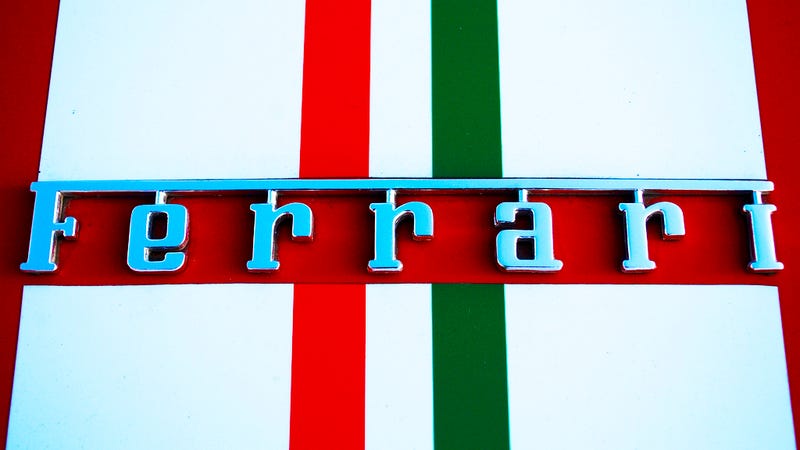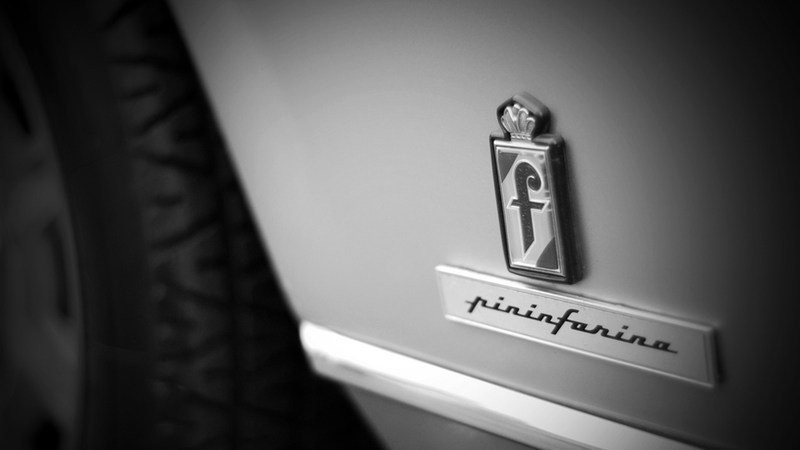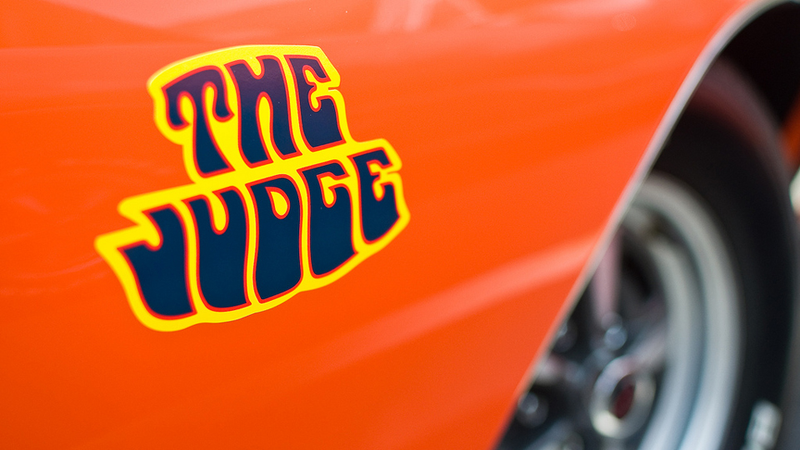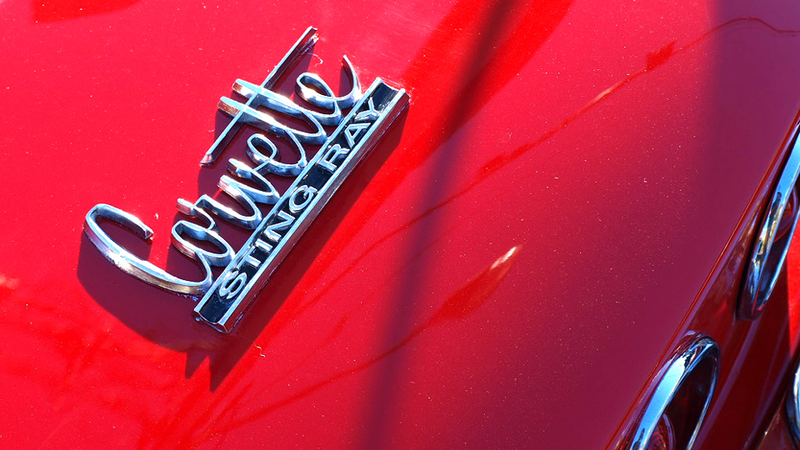
The Ten Greatest Automotive Fonts Of All Time
It's time to delve into the nerdcore world of typeface and logotype and see how just a few letters spelled out in chrome can define how you feel about a car. According to Jalopnik readers, these are the ten greatest fonts used in or on cars.
10.) Delahaye
Why it's classic: French super sports car makers from before WWII, Delahaye, used this beautiful, standout art deco font.
It just captures the feel of the 1920s and '30s and their absurdly expensive, somehow refined ultra-luxury cars.
9.) Pontiac's "The Judge"
Why it's classic: From 1969 to 1971 you could order up a single performance package for your Pontiac GTO, dubbed simply "The Judge." The name came from the popular comedy variety show of the day "Laugh-In" and the font was equally as hip.
Sadly, few car companies are willing to so openly pander to what the kids are doing, especially right in the name of a car. For instance, why isn't the badge on every Chevy Sonic written in twisting, utterly illegible graffiti?
8.) FIAT
Why it's classic: Another Art Deco font, only this time from Fiat's earlier days. Super tall and extremely narrow, the font also has the feel of something small, refined, and too light for its size.
7.) Corvette cursive
Why it's classic: There are plenty of fantastically chromed cursive fonts from American cars of the '50s and '60s, like the underscored text on Chevrolet Bel Airs and the completely illegible font on DeSoto Fireflites.
The freewheeling typeface of the Corvette is just a perfect example from a great pool of old American car fonts.
6.) 911 Porsche
Why it's classic: Porsche has two iconic fonts. It has the "Carrera" script, which adorns the side of their faster cars and spells out their "Turbo" logos.
That's a great font, but we should not forget the completely recognizable modern script that helped define the brand as the Teutonic Wundercar to beat.
5.) Mustang font
Why it's classic: Like Porsche, the Mustang has picked up a few iconic fonts in its many years as a popular sporty car. There's the Mach 1 font, there's the double-line font, and there's this, the classic blocky Mustang type.
You see it on things like this Shelby GT 500 and it just screams '60s sports car.
4.) DeLorean
Why it's classic: In the 1970s, cars went from having extremely elaborate, intricate, fairly hard to read cursive fonts like the ones on the Corvette to extremely blocky, modern fonts like the one for the failed sports car project, the DeLorean DMC-12.
Like the best fonts on this list, it's very much of its time, but it's still a classic. Totally '80s, totally rad.
3.) Pininfarina
Why it's classic: It's like the great American fonts from the '50s and '60s, only with some Italian refinement and a whole lot of added legibility.
Of all the great styles to come on vintage Italia sports cars like Maserati, Lancia, Touring of Milan, and Alfa Romeo, it's the typeface for the styling house Pininfarina that remains the most enduring and recognizable.
2.) Rounded VAG
Suggested By: seanjordan
Why it's classic: This is Volkswagen's font. That's not to say that it's only VW's, because you'll find it on every Apple keyboard.
The font is clean, simple, friendly, and it was amazingly alternative compared to the elaborate fonts used by the Americans, British, French, and Italians. It fit perfectly with Volkswagen's voice as a brand here in America and it's all part of VW's resounding success as a brand.
1.) Ferro Rosso
Why it's classic: As 2011 rolls into 2012, there is no more iconic brand in the world of cars than Ferrari. Their logo, written in their own unique font, is completely tied to the image of the Ferrari race and road cars.
That means that of all the fonts, it is Ferrari's that is the most revered, the most recognized, and perhaps even the greatest.